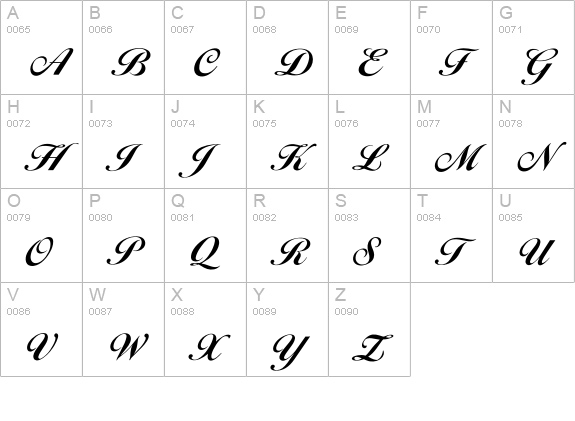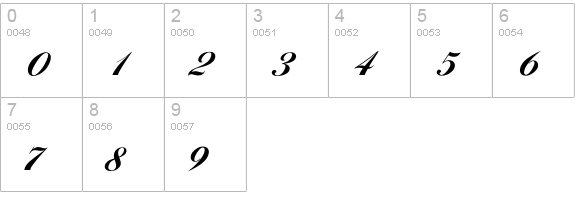
Isolde Font Details
Introducing Isolde, an exquisite and versatile font that effortlessly captures a sense of elegance and sophistication. With its stunning curves and delicate serifs, Isolde is the perfect choice for those seeking a font that effortlessly combines classic beauty with a touch of modernity. Isolde's versatility knows no bounds, as it effortlessly adapts to a wide range of design projects. Whether you're working on a wedding invitation, a logo for a high-end brand, or a magazine layout, Isolde will add a touch of refinement and grace to any composition. Its clean lines and balanced proportions make it a timeless choice that will never go out of style. But what truly sets Isolde apart is its unique trait of being freely available to download at FontsMarket.com. This means that designers and creatives alike can easily access and incorporate this stunning font into their projects without any hassle. The fact that Isolde is freely available only adds to its appeal, as it allows for complete creative freedom without any financial constraints. With Isolde, the possibilities are endless. It is a font that empowers designers to create visually stunning and impactful designs, while maintaining a sense of elegance and sophistication. So why wait? Download Isolde today from FontsMarket.com and discover the beauty and versatility that this remarkable font has to offer.